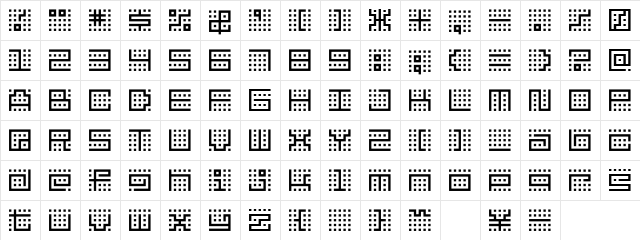
BM kitchen A10
Design Context for BM kitchen Typeface
BM kitchen takes a measured approach to typography — its balanced proportions and neutral character make it a reliable workhorse for both digital and print work.